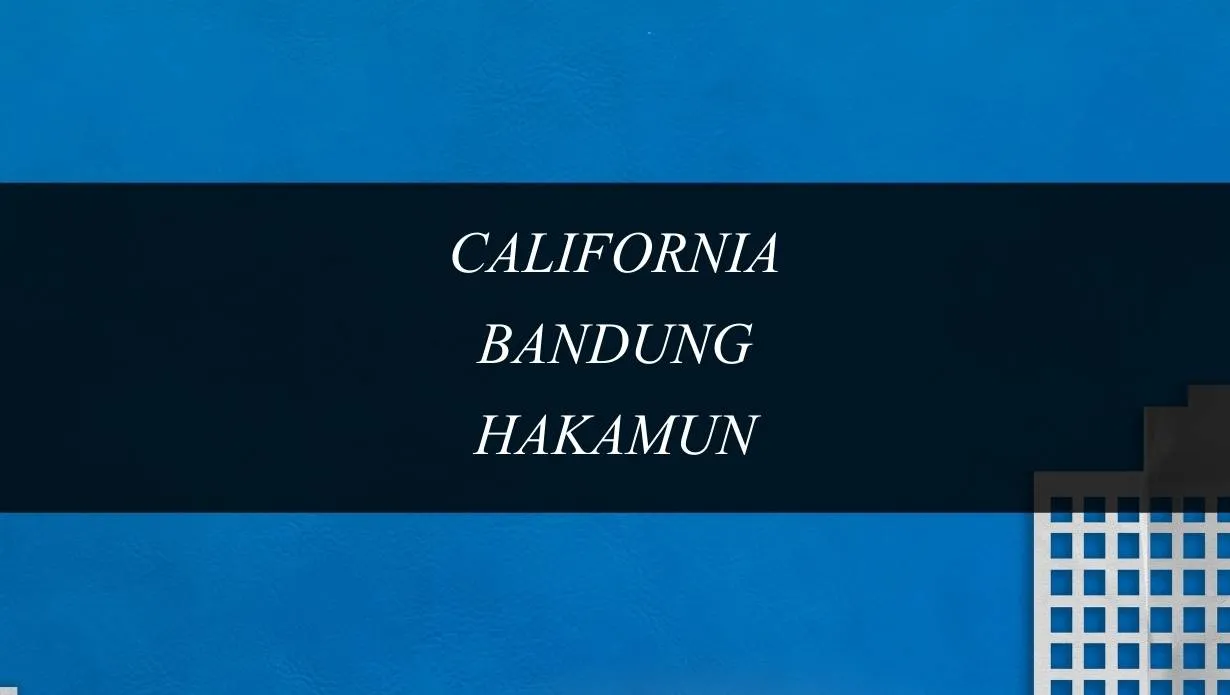
Vijaya Font is a serif typeface created by Tiro Typeworks. It is named after the ancient city of Vijayanagar, India. This Font was designed to be used for Tamil-language text on computer screens. The Vijaya Typeface has a unique design that makes it easy to read on-screen. This Font is available in two styles: regular and bold.
This Font was developed by Tiro Typeworks, a Canadian type foundry. The Vijaya Typeface was inspired by the city of Vijayanagar, India. Vijayanagar was a prosperous city that flourished during the 14th-16th centuries.
This Font has a unique design that makes it easy to read on-screen. If you want to compare this typeface style with arimo font then it would be the best combination for you.
View of Vijaya Font
Vijaya Font Info
| Name | Vijaya Font |
| Designer | Tiro Typeworks |
| Style | Serif |